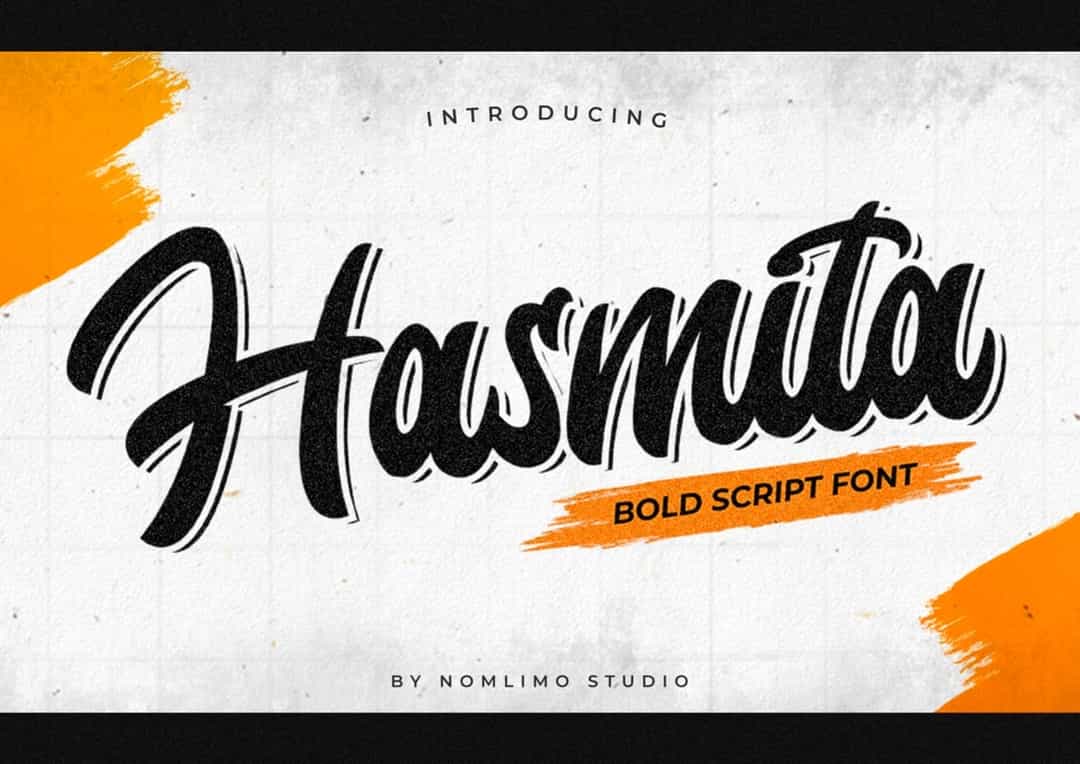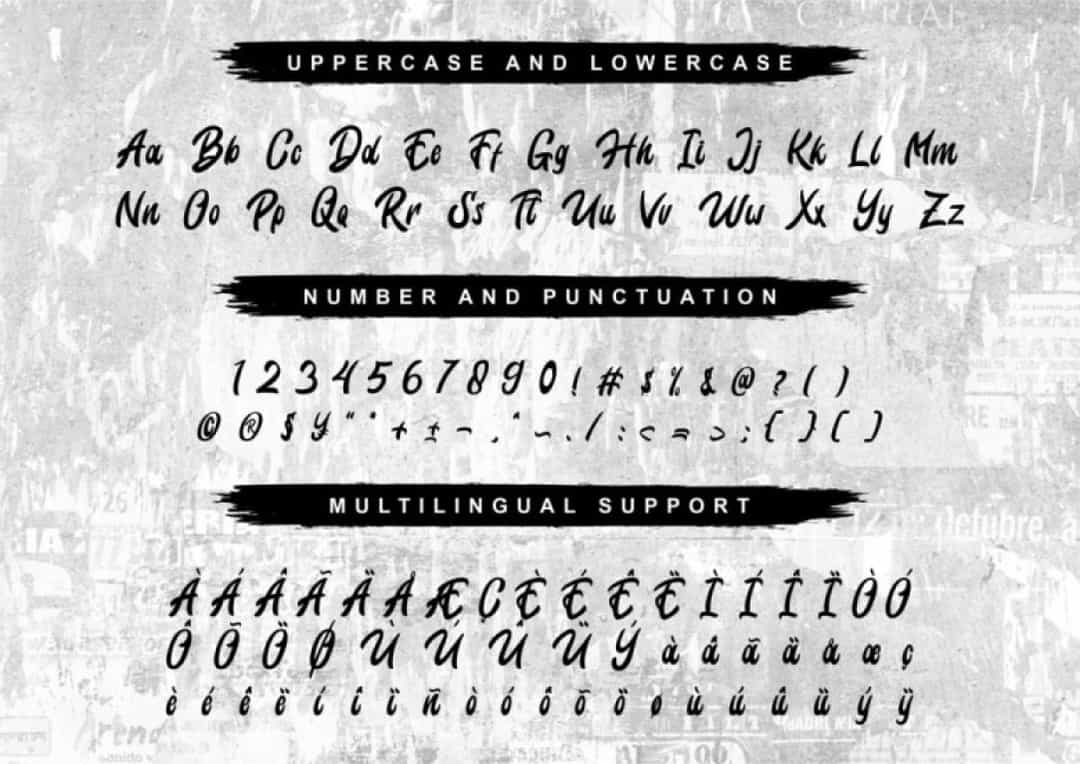
Discover Hasmita Font, part of the Brush collection—a versatile and unique font perfect for adding a personal touch to your projects. Download it for free and enjoy crafting designs with style, from invitations to social media posts. This font is available exclusively for personal use, giving you the freedom to create without limits. Unlock your creativity with Hasmita Font today!
Hasmita is a bold script font inspired by handwritten letters. Additionally, Hasmita draws its lively visuals and aesthetics from StreetArt and UrbanStyle cultures for added enjoyment. Enjoy Hasmita’s artistic appeal to add its captivating urban style into your brand, art posters or other creative endeavors – let your imagination run wild by using this bold font and watch your ideas flourish with irresistible enthusiasm!